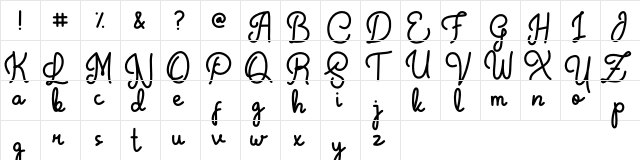
Crunchy Pasta Regular
| Foundry | wyarecreatype |
| Designer | Yudi Setiawan |
Design Context for Crunchy Pasta Typeface
Crunchy Pasta is a composed and adaptable typeface that performs quietly and consistently across a wide range of design contexts.